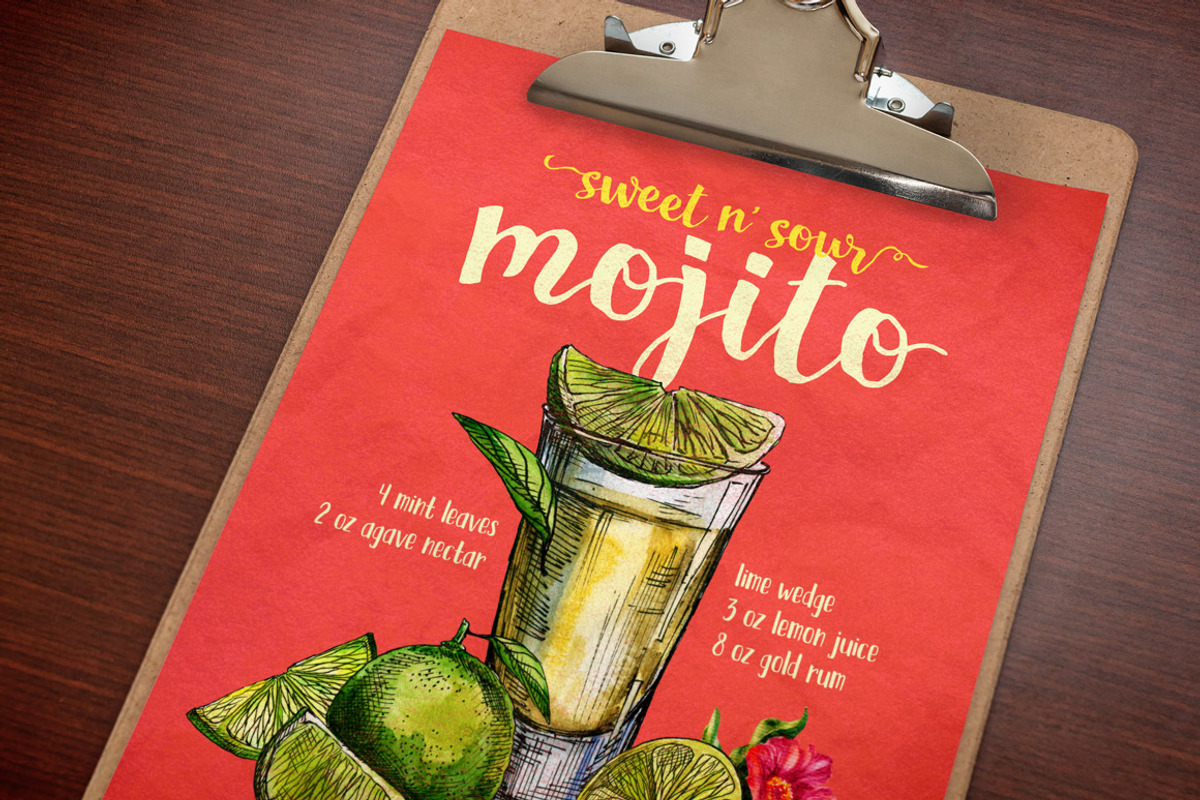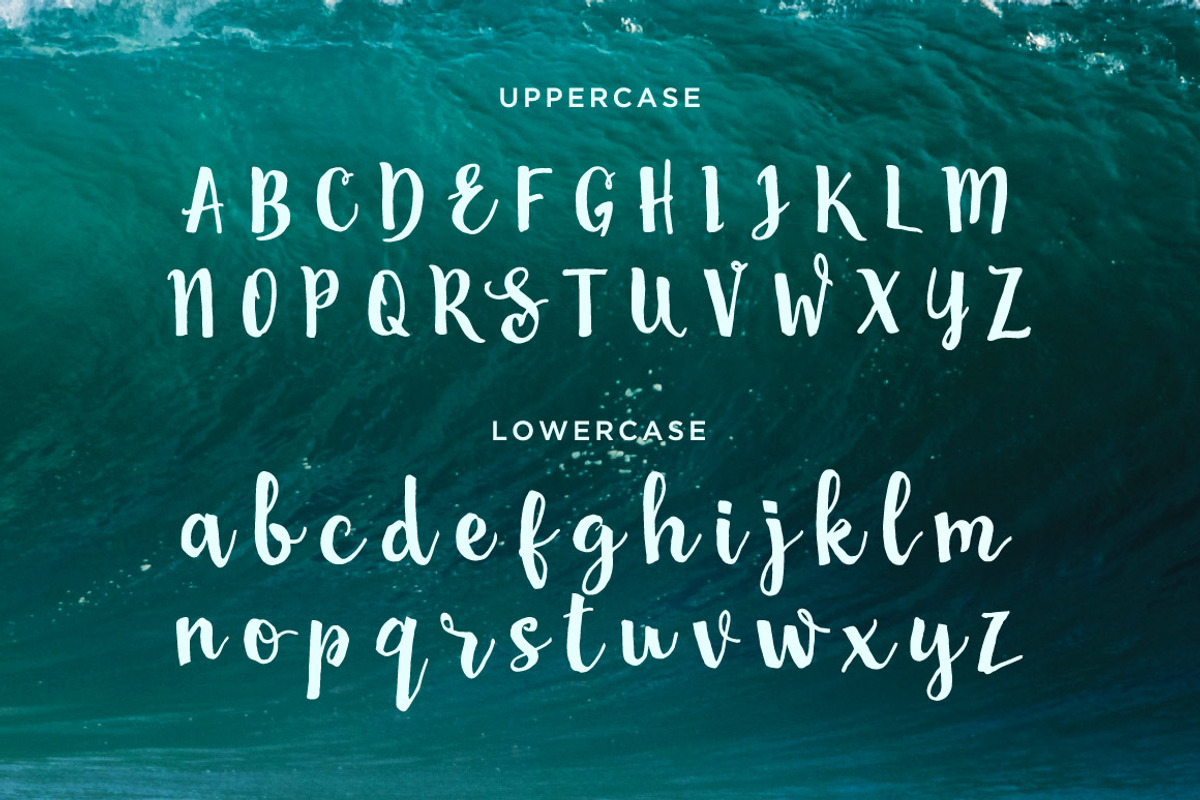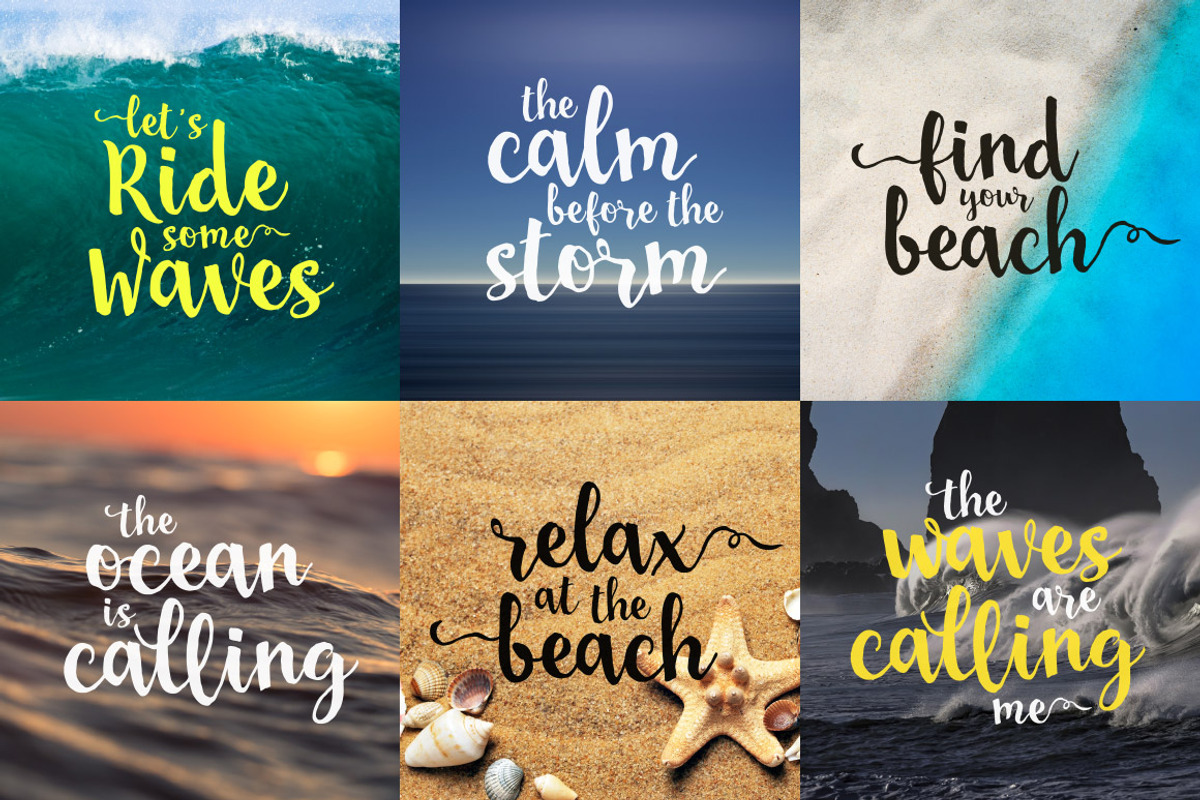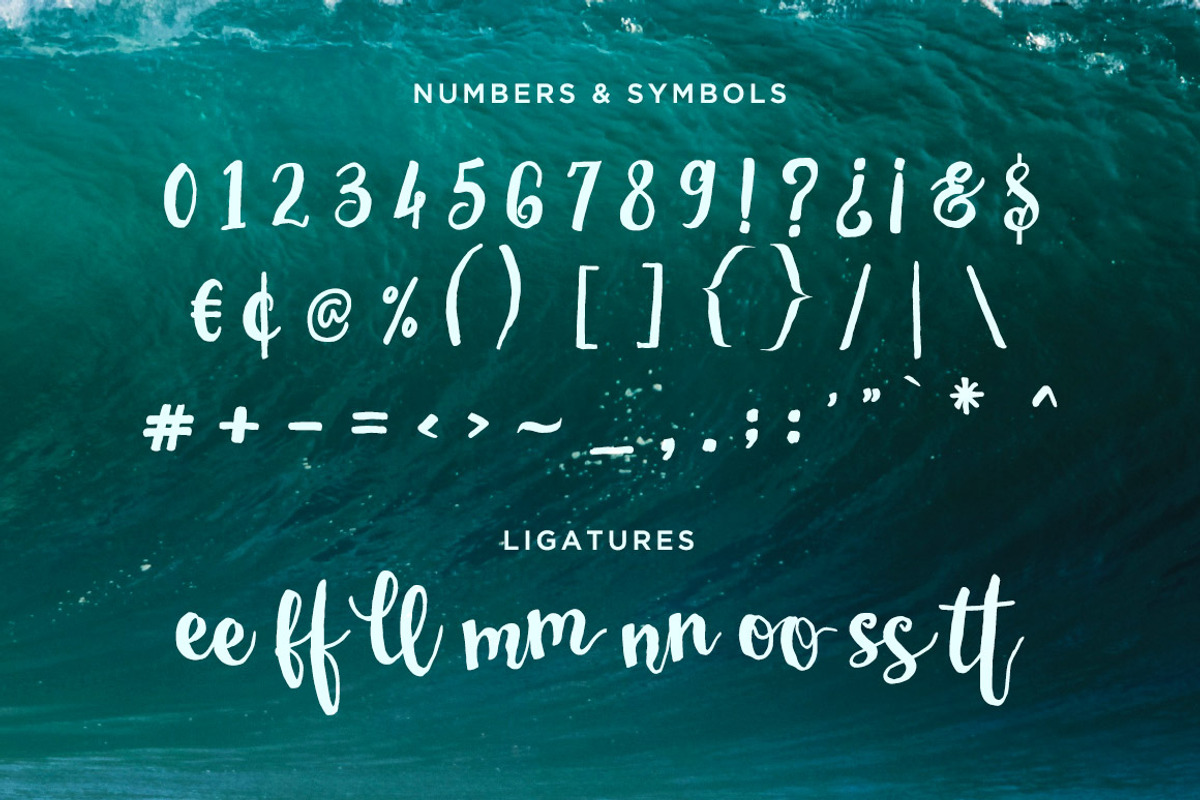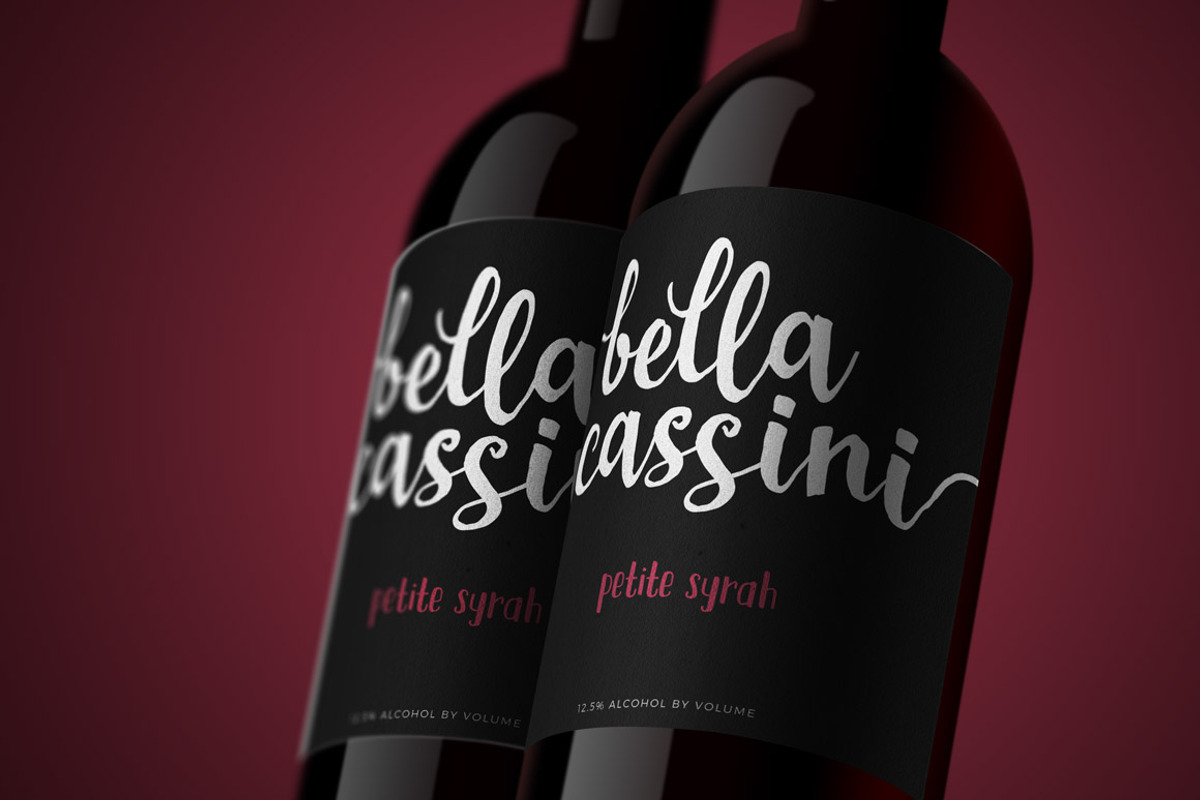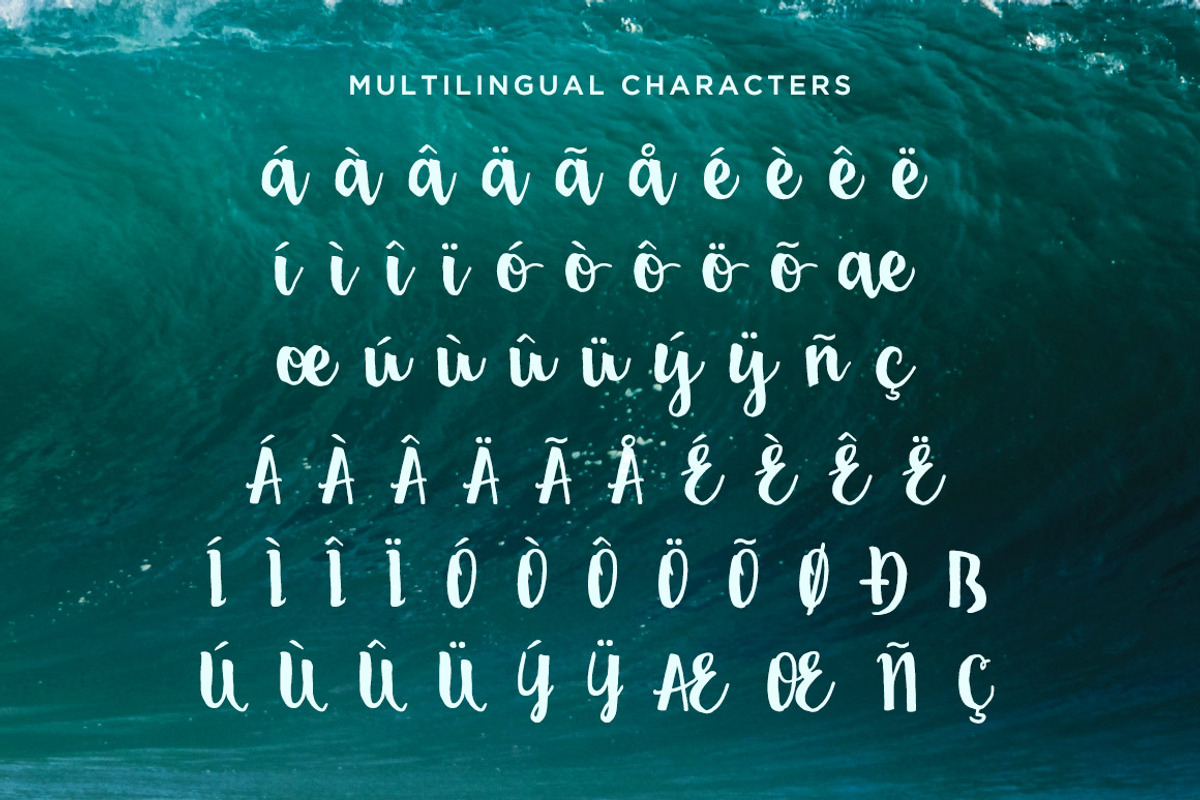
San Luis Script Font
San Luis Script Font by Design Panoply is a font selected for branding, posters, packaging, typography.
- Included are plenty of OpenType features like ligatures and initial and terminal forms for a little extra flair.
- Multilingual characters are also included to cover a majority of Latin-based languages.
Why San Luis Script Font is worth a look
San Luis Script Font by Design Panoply fits naturally into Branding, posters, packaging, typography.